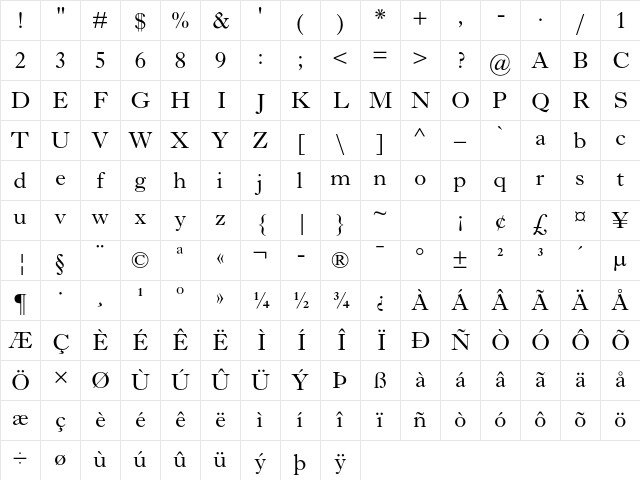
Imprint MT Std Regular
Design Context for Imprint MT Std
Imprint MT Std is a composed and adaptable typeface that performs quietly and consistently across a wide range of design contexts.
Pro Tip: Use Imprint MT Std in both headline and body roles to test its range before committing to a single application.